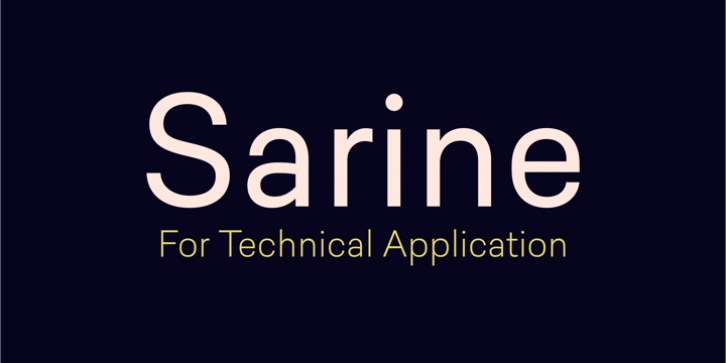
Sarine is a sans-serif typeface inspired by signage for traffic. It’s a constructed family designed for technical application. The Sarine family includes 7 weights, from Hairline to Black, with their corresponding italics. Each font includes OpenType Features such as Stylistic Alternates, Proportional Figure, Tabular Figures, Numerator, Superscript, Denominators, Scientific Inferiors, Subscript, Ordinals, Ligatures and Fractions.